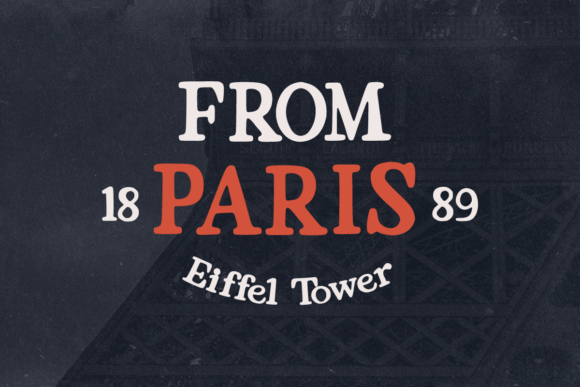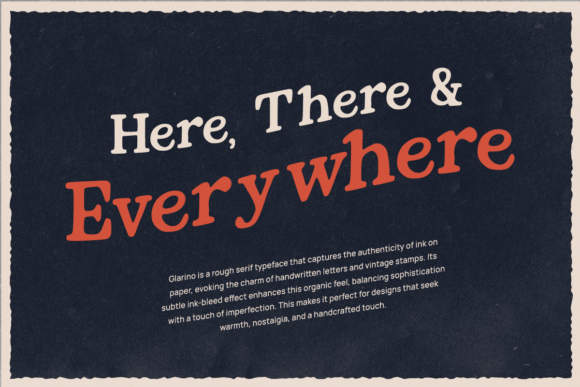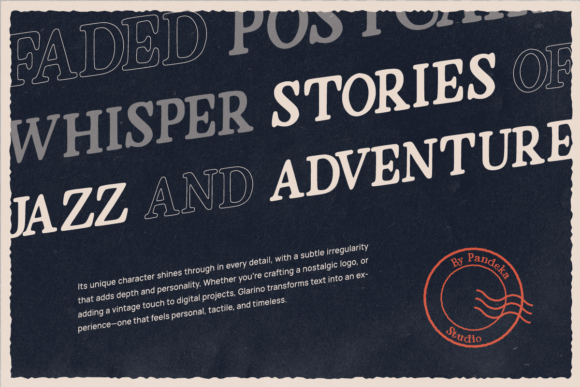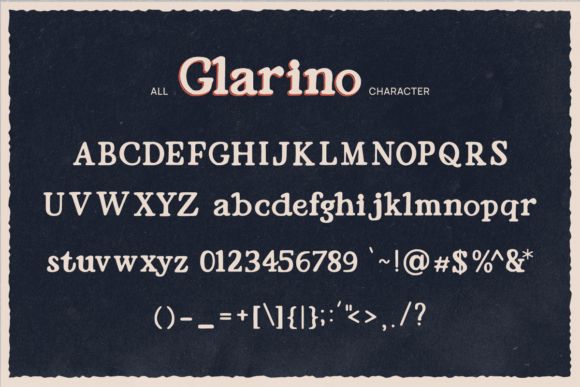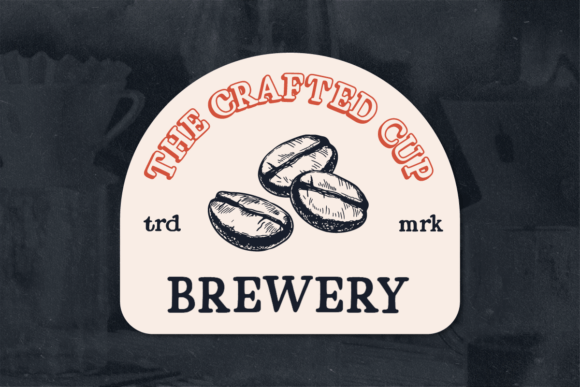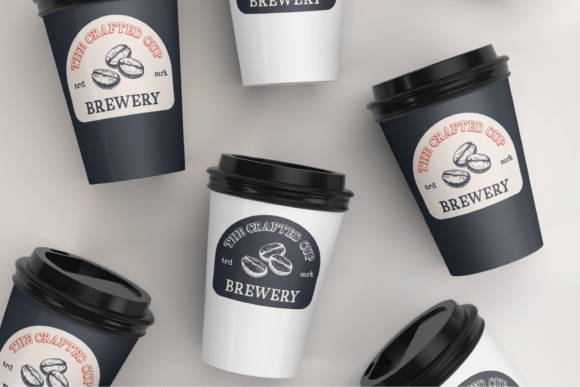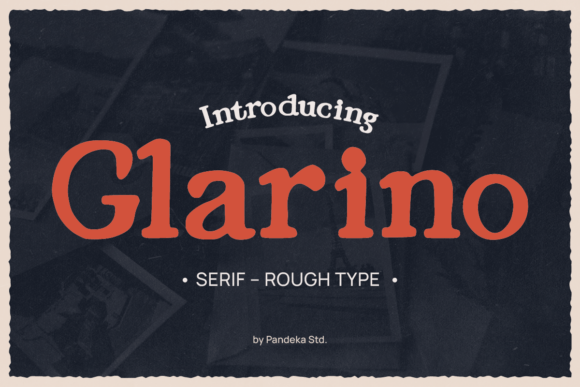
Glarino Font: Elevate Your Designs with a Timeless Vintage Serif
In the world of typography, few fonts manage to strike a balance between classic elegance and bold aesthetics. Glarino, a vintage serif font, is one such exceptional typeface that seamlessly blends traditional charm with modern sophistication. Designed to add a retro yet refined touch to various design projects, Glarino is perfect for those seeking a timeless look that exudes both nostalgia and luxury.
The Essence of Glarino Font
Glarino is more than just a font; it’s an experience. Its unique blend of classic typography and elegant lettering makes it an ideal choice for designers and crafters looking to infuse their projects with a sense of history and glamour. The font’s moderate contrast and distinctive stamp effect give it a standout quality, making it perfect for a wide range of applications, from branding and packaging to editorial layouts and headlines.
Key Features of Glarino Font
- Vintage Serif Design: Glarino boasts a classic serif design that echoes the elegance of bygone eras. Its serifs add a touch of sophistication, making it suitable for high-end branding and editorial projects.
- Elegant Lettering: The font’s lettering is not just beautiful; it’s also highly legible. This makes Glarino an excellent choice for body text and headlines alike.
- Bold Aesthetics: With its robust lines and confident presence, Glarino brings a boldness to your designs that is hard to ignore. It’s perfect for making statements.
- Unique Stamp Effect: One of the standout features of Glarino is its subtle stamp effect, which gives the font a distinctive look that’s both vintage and eye-catching.
- Moderate Contrast: The moderate contrast in Glarino’s design ensures that it’s readable across various mediums, from digital screens to print.
Applications of Glarino Font
Glarino’s versatility makes it an invaluable asset for designers. Here are some of the best ways to use this stunning font:
- Branding: Use Glarino to give your brand a touch of classic elegance. It’s perfect for luxury brands, fashion labels, and any business looking to convey a sense of tradition and quality.
- Packaging: Whether you’re designing labels for wine, perfume, or gourmet foods, Glarino adds a sophisticated touch that can elevate your product’s perceived value.
- Editorial Layouts: For magazines, newspapers, and digital publications, Glarino can add a touch of class to your typography, making your content more engaging and readable.
- Headlines: The bold aesthetics of Glarino make it an excellent choice for headlines and titles, where you want to grab attention and convey a sense of authority.
Why Choose Glarino Font?
In a sea of modern sans-serif fonts, Glarino stands out with its unique blend of vintage charm and modern elegance. Here are a few reasons why Glarino should be your go-to font for your next project:
- Timeless Appeal: Glarino’s classic design ensures that your projects won’t feel dated anytime soon. It’s a font that can stand the test of time.
- Versatility: From digital designs to print materials, Glarino performs exceptionally well across various mediums.
- Elegance and Boldness: The font combines elegance with boldness, making it suitable for a wide range of design needs.
Glarino font is a remarkable addition to any designer’s toolkit. Its perfect blend of vintage serifs, elegant lettering, and bold aesthetics makes it an ideal choice for those looking to add a touch of timeless sophistication to their projects. Whether you’re working on branding, packaging, editorial layouts, or headlines, Glarino is sure to make your designs stand out. Embrace the elegance and boldness of Glarino, and elevate your designs to new heights of typographic excellence.